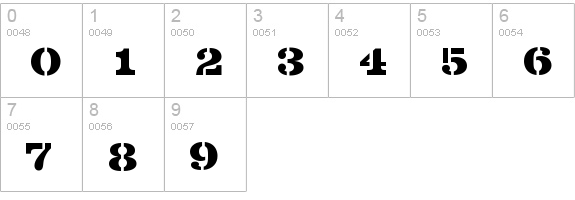
VoltaSteDBol Font Details
Introducing VoltaSteDBol, a stunningly bold and beautifully crafted typeface that is sure to captivate and inspire. This font exudes power and strength, making it perfect for headlines, logos, and posters that demand attention. With its clean lines and sharp edges, VoltaSteDBol commands the viewer's gaze, leaving a lasting impression. What makes VoltaSteDBol even more enticing is that it is available for free! That's right, this remarkable font can be downloaded at no cost from FontsMarket.com. Whether you're a professional designer looking for the perfect font to elevate your projects or an aspiring creator eager to experiment with typography, VoltaSteDBol is here to fulfill your creative dreams. Its versatility knows no bounds, as it effortlessly adapts to a wide range of design styles and purposes. From elegant and sophisticated to edgy and modern, VoltaSteDBol effortlessly complements any visual composition, adding a touch of uniqueness and sophistication. The meticulous attention to detail in crafting VoltaSteDBol is evident in its flawless curves and precise contours. Each letter is meticulously designed to maintain readability while exuding a sense of boldness and character. This font truly stands out among the crowd, making it an essential tool in any designer's arsenal. Whether you're working on branding projects, editorial layouts, or web designs, VoltaSteDBol is the perfect choice to make a statement. It effortlessly combines legibility with visual impact, ensuring that your message is conveyed with utmost clarity and style. In conclusion, VoltaSteDBol is a remarkable font that seamlessly blends boldness and elegance. Its availability as a free download at FontsMarket.com makes it accessible to all designers, regardless of their budget. So why wait? Elevate your designs and unleash your creativity with VoltaSteDBol today!